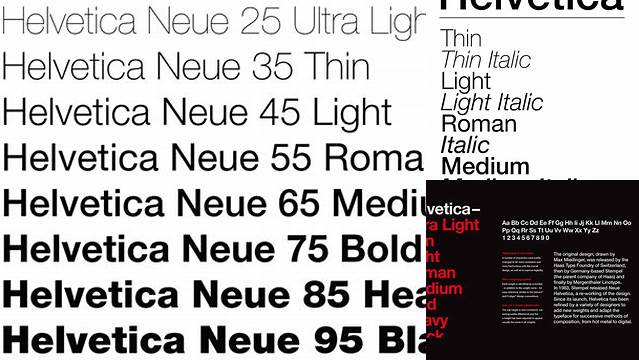
Helvetica Regular: Free Font Download Guide
Hey guys! Are you on the hunt for the perfect font? Look no further! Helvetica Regular is a classic, versatile typeface thatâs a go-to for designers and creatives everywhere. In this guide, we're diving deep into everything you need to know about Helvetica Regular, including where to find it for free, its history, uses, and some cool alternatives. So, let's get started!
1. What is Helvetica Regular?
Helvetica Regular is more than just a font; it's a design staple. Originating in 1957 from Switzerland, this sans-serif typeface has become synonymous with clarity and simplicity. Its clean lines and neutral appearance make it incredibly versatile for a wide range of applications, from branding and advertising to web design and print. But what exactly makes Helvetica Regular so special? Well, itâs all about its legibility and timeless design. The font is designed to be easily readable in various sizes and contexts, which is why it's often used for body text, headlines, and even signage. The neutrality of Helvetica Regular means it doesn't impose a particular mood or style, allowing the content to take center stage. It's like the little black dress of fonts â always in style and suitable for any occasion. Now, let's delve a bit deeper into its history and see how it became the icon it is today.
2. History of Helvetica Regular
The story of Helvetica Regular begins in the late 1950s when Swiss typeface designer Max Miedinger was commissioned by the Haas Type Foundry to create a new sans-serif typeface. The goal was to develop a font that could compete with the popular Akzidenz-Grotesk. Miedinger's creation, initially named Neue Haas Grotesk, was released in 1957 and quickly gained attention for its clean and modern aesthetic. In 1960, the font was rebranded as Helvetica, derived from âHelvetia,â the Latin name for Switzerland. This rebranding was a strategic move to give the font a more international appeal, and it worked wonders. Throughout the 1960s and 70s, Helvetica's popularity soared. Its simplicity and legibility made it a favorite among corporations and designers. It became the go-to font for everything from corporate logos to signage systems. Think about iconic brands like BMW, American Airlines, and even the New York City subway system â all have used Helvetica in their branding. This widespread adoption solidified Helvetica's place in design history. The font has undergone several updates and revisions over the years, including Neue Helvetica, which features a more comprehensive range of weights and styles. But the original Helvetica Regular remains a classic, and its legacy continues to influence the world of typography.
3. Key Characteristics of Helvetica Regular
So, what are the specific traits that make Helvetica Regular stand out? It's all about the details! The font is characterized by its uniform stroke width, which gives it a clean and consistent appearance. This uniformity makes it incredibly legible, even at small sizes. The letterforms in Helvetica Regular are designed with a relatively high x-height, meaning the lowercase letters are tall compared to the uppercase letters. This contributes to its readability and makes it easier on the eyes. Another key characteristic is its closed apertures, which refer to the partially closed spaces in letters like 'c' and 's.' This feature helps to differentiate the letters and prevent them from blurring together, especially in smaller sizes or at a distance. Helvetica Regular also boasts a simple, geometric structure, with characters that are neither too wide nor too narrow. This balanced design gives it a neutral and versatile feel, making it suitable for a wide variety of applications. In essence, Helvetica Regularâs key characteristicsâuniform strokes, high x-height, closed apertures, and geometric structureâcombine to create a typeface that is both functional and aesthetically pleasing.
6. Free Alternatives to Helvetica Regular
Okay, so maybe you can't get Helvetica Regular for free, but don't worry! There are tons of amazing free alternatives out there that capture a similar vibe. One of the most popular alternatives is Roboto, a sans-serif typeface created by Google. Roboto is known for its clean lines and modern appearance, making it a great choice for both body text and headlines. It's also incredibly versatile and works well in a variety of design contexts. Another excellent option is Open Sans, also designed by Steve Matteson. Open Sans is another sans-serif font that prioritizes legibility, with a friendly and approachable feel. Itâs particularly well-suited for web design, thanks to its optimized readability on screens. Lato is another fantastic free alternative that offers a slightly warmer and more rounded appearance compared to Helvetica. Designed by Ćukasz Dziedzic, Lato has become a favorite among designers for its elegant and modern aesthetic. If you're looking for something a bit more geometric, Montserrat might be the perfect fit. Inspired by the urban typography of Buenos Aires, Montserrat has a bold and contemporary feel, making it ideal for headlines and display text. Lastly, consider Inter, a typeface specifically designed for computer screens. Inter boasts a tall x-height and clear letterforms, ensuring excellent readability even at small sizes. All these fonts are available on Google Fonts, making them easily accessible for your projects. So, you've got plenty of options to choose from without spending a dime!
7. Using Helvetica Regular in Web Design
When it comes to web design, Helvetica Regular is a solid choice for its clarity and readability. A website's typography plays a crucial role in user experience, and using a font like Helvetica Regular can ensure that your content is easily accessible and visually appealing. One of the main reasons Helvetica Regular works so well on the web is its clean and neutral aesthetic. It doesn't distract from the content and allows your message to shine through. Whether you're designing a blog, an e-commerce site, or a corporate website, Helvetica Regular can provide a professional and polished look. However, itâs essential to use it strategically. While Helvetica Regular is excellent for body text, consider pairing it with a different font for headings to create visual interest. For example, you might use a bolder sans-serif or even a serif font for titles to add contrast and hierarchy to your design. When implementing Helvetica Regular on your website, make sure to optimize it for web use. This means using web fonts in formats like WOFF and WOFF2, which are designed to load quickly and efficiently. You can also use CSS to specify different font weights and styles, giving you greater control over the typography on your site. Remember, readability is key, so choose a font size and line height that makes the text comfortable to read on different devices and screen sizes. By using Helvetica Regular thoughtfully, you can create a website that is both visually appealing and user-friendly.
8. Using Helvetica Regular in Print Design
Helvetica Regular shines just as brightly in the world of print design as it does online. Its versatility and legibility make it a go-to choice for a wide range of print materials, from brochures and posters to magazines and books. One of the key advantages of using Helvetica Regular in print is its ability to maintain clarity even at small sizes. This makes it ideal for body text in books and articles, where readability is paramount. The clean lines and uniform strokes of Helvetica Regular ensure that the text remains crisp and legible, even when printed on different types of paper. In print design, typography plays a crucial role in establishing the tone and style of a piece. Helvetica Regularâs neutral appearance means it can be used in a variety of contexts, from formal business documents to creative marketing materials. It pairs well with a wide range of other fonts, giving you flexibility in your design choices. When using Helvetica Regular in print, pay attention to details like kerning and leading. Kerning refers to the spacing between individual letters, while leading is the vertical space between lines of text. Adjusting these settings can significantly improve the readability and visual appeal of your printed materials. For headlines and titles, consider using a bolder weight of Helvetica or pairing it with a complementary font that adds contrast and visual interest. Whether you're designing a business card, a flyer, or a full-length book, Helvetica Regular can help you create a polished and professional final product.
9. Helvetica Regular vs. Helvetica Neue
You've probably heard of both Helvetica Regular and Helvetica Neue, but what's the difference? Think of Helvetica Neue as the updated and expanded version of the classic Helvetica Regular. While they share the same fundamental DNA, there are some key distinctions that make Helvetica Neue a more versatile and comprehensive typeface family. Helvetica Neue was developed in 1983 as a systematic redesign of the original Helvetica. The goal was to create a more cohesive and consistent typeface family with a wider range of weights and styles. Helvetica Neue includes a much larger selection of weights, from ultra-light to extra-bold, as well as condensed and extended versions. This expanded range gives designers more flexibility and control over their typography. One of the most noticeable differences between the two fonts is the numbering system used to identify the weights. Helvetica Neue uses a numerical system, where numbers indicate the weight and width of the font. For example, Helvetica Neue 55 Roman is the regular weight, while Helvetica Neue 75 Bold is a bolder version. In terms of design, Helvetica Neue features subtle refinements to the letterforms, such as improved spacing and more consistent stroke widths. These changes enhance its legibility and visual appeal, especially in digital environments. While Helvetica Regular remains a classic choice, Helvetica Neue offers a more modern and versatile option for designers who need a comprehensive typeface family. If you're looking for a wide range of weights and styles, Helvetica Neue is definitely worth considering.
10. Pairing Helvetica Regular with Other Fonts
Helvetica Regular is a team player! One of its greatest strengths is how well it pairs with other fonts. This versatility makes it a staple in any designer's toolkit. But how do you choose the right fonts to pair with Helvetica Regular? The key is to create contrast and visual interest while maintaining readability and harmony. One popular approach is to pair Helvetica Regular with a serif font for headlines or subheadings. Serif fonts have small decorative strokes at the ends of the letters, which can add a touch of elegance and formality to your design. Times New Roman, Garamond, and Georgia are classic serif fonts that pair beautifully with Helvetica Regular. The contrast between the clean sans-serif body text and the more decorative serif headings can create a balanced and visually appealing layout. Another effective pairing strategy is to use different weights of Helvetica Regular itself. For example, you might use Helvetica Bold for headlines and Helvetica Regular for body text. This creates a clear visual hierarchy while maintaining a cohesive look and feel. You can also experiment with other sans-serif fonts that have distinct characteristics. For instance, pairing Helvetica Regular with a more geometric sans-serif like Futura or a humanist sans-serif like Open Sans can add subtle contrast and personality to your design. Remember, the goal is to choose fonts that complement each other and enhance the overall message of your design. Don't be afraid to experiment and try different combinations until you find the perfect pairing!
11. Helvetica Regular for Logos and Branding
When it comes to logos and branding, Helvetica Regular has a long and storied history. Its clean, neutral, and timeless design makes it an excellent choice for creating a brand identity that is both professional and approachable. Many iconic brands have relied on Helvetica Regular (or variations of it) to convey their message. Think about brands like BMW, Panasonic, and American Airlines â all have used Helvetica in their logos and branding materials. So, what makes Helvetica Regular so well-suited for branding? Firstly, its simplicity ensures that the logo remains legible and recognizable across various media, from business cards to billboards. The clean lines and uniform strokes of Helvetica Regular create a sense of clarity and trustworthiness, which can be crucial for building brand confidence. Secondly, Helvetica Regularâs neutrality allows the brand's message and values to take center stage. It doesn't impose a particular mood or style, making it a versatile choice for a wide range of industries and brands. Whether you're creating a logo for a tech startup, a financial institution, or a creative agency, Helvetica Regular can provide a solid foundation for your brand identity. When using Helvetica Regular for logos, consider experimenting with different weights and styles to create visual interest. You might use Helvetica Bold for the main logo text and Helvetica Light for a tagline or supporting text. You can also pair Helvetica Regular with a distinct color palette or graphic elements to create a unique and memorable brand identity. Just remember to keep the overall design clean, simple, and consistent with your brand's message.
12. The Neutrality of Helvetica Regular
One of the most defining characteristics of Helvetica Regular is its neutrality. This isn't a flaw; it's actually one of its greatest strengths. Unlike some fonts that have a strong personality or evoke specific emotions, Helvetica Regular is designed to be unobtrusive and let the content speak for itself. This neutrality makes it incredibly versatile and suitable for a wide range of applications. Think of Helvetica Regular as the